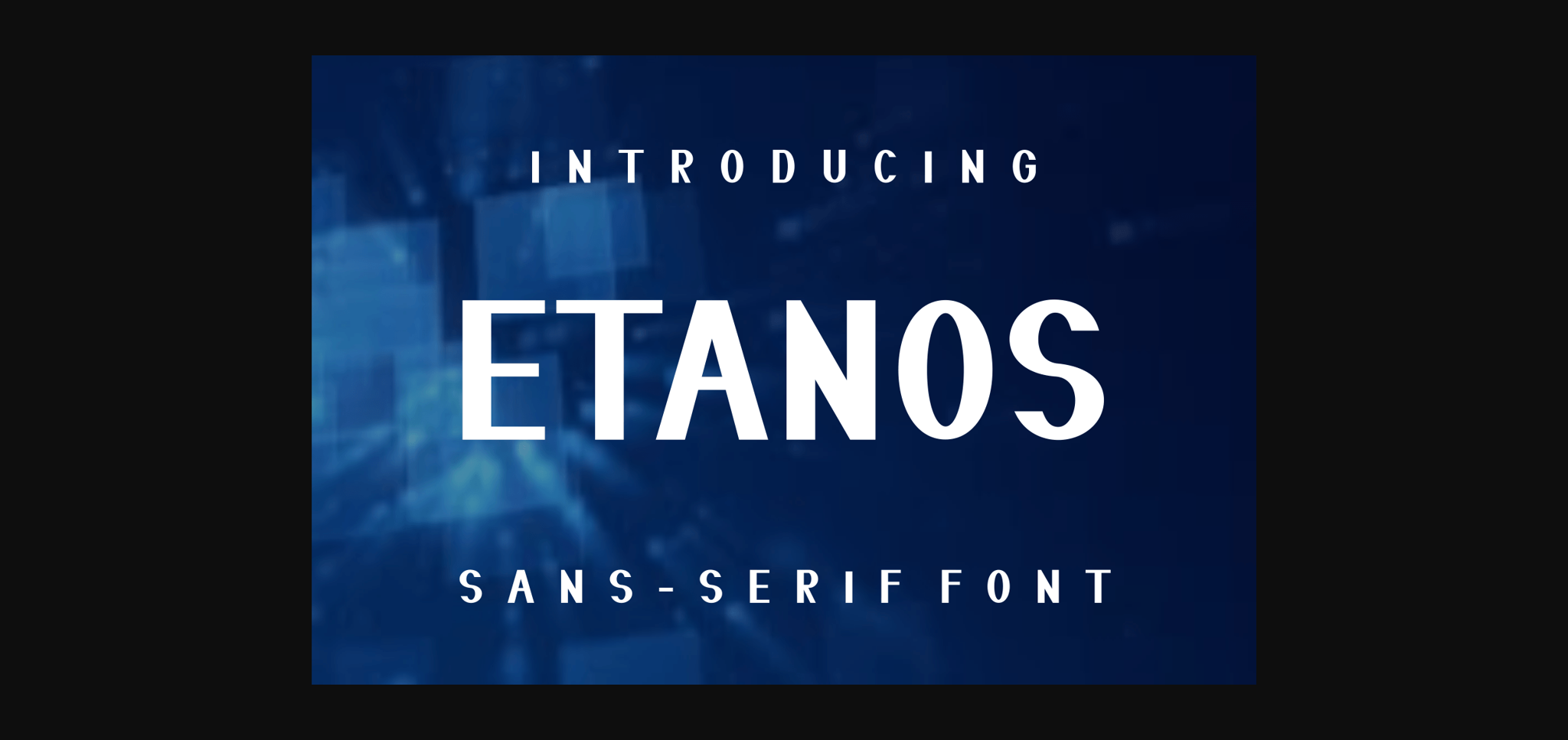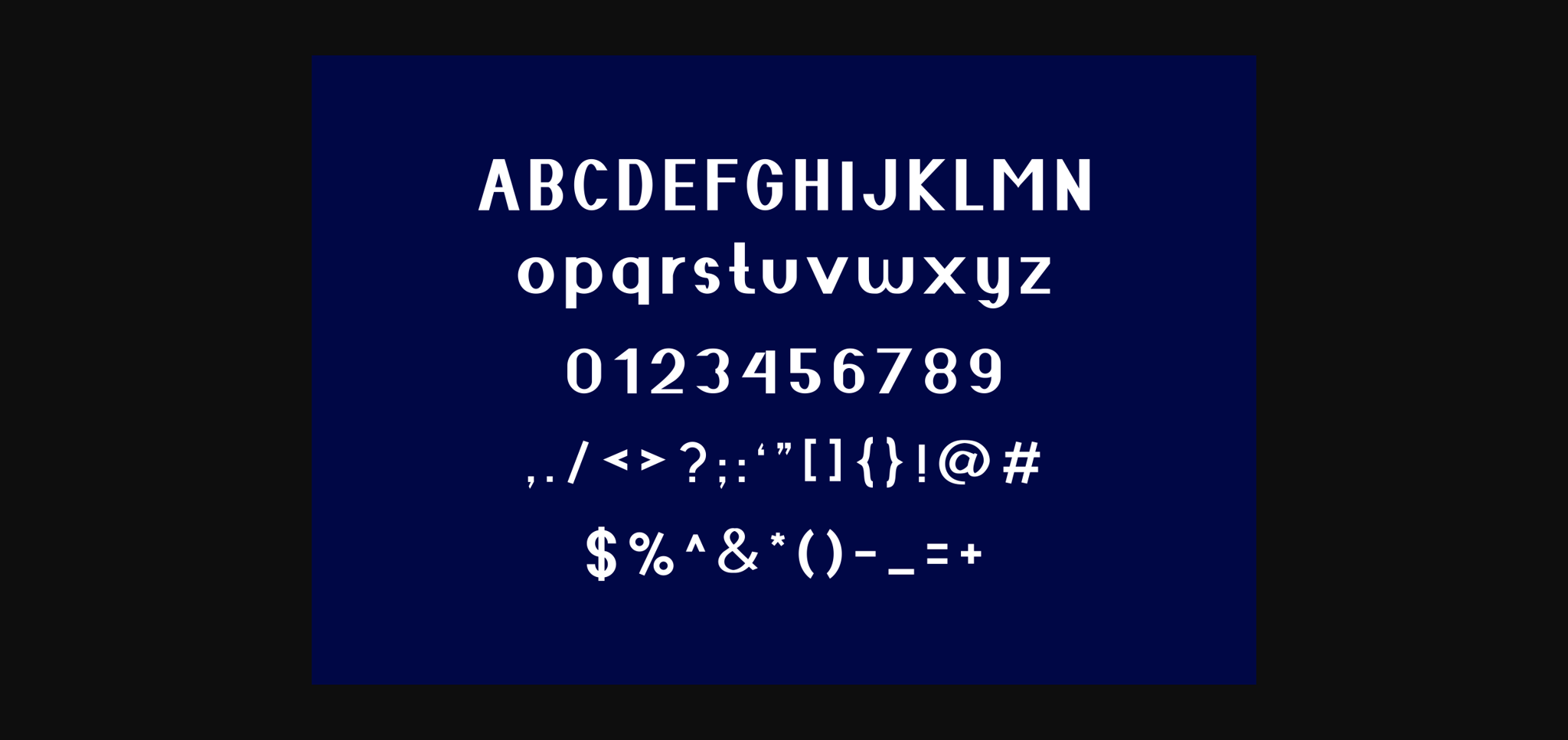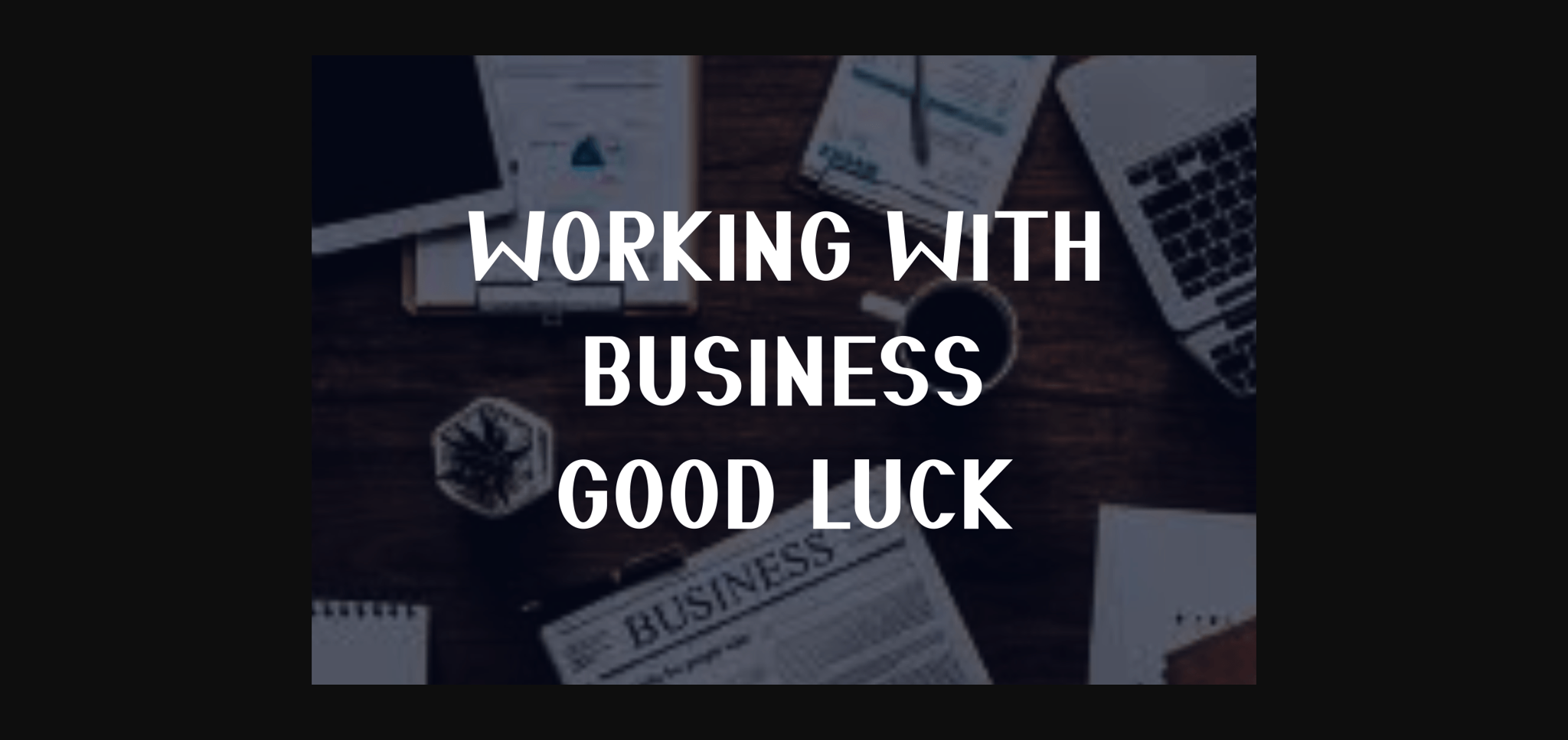
Etanos Font
About Etanos Font
Etanos is a cool and modern sans serif font. No matter the topic, this font will be an incredible asset to your fonts’ library, as it has the potential to elevate any creation.